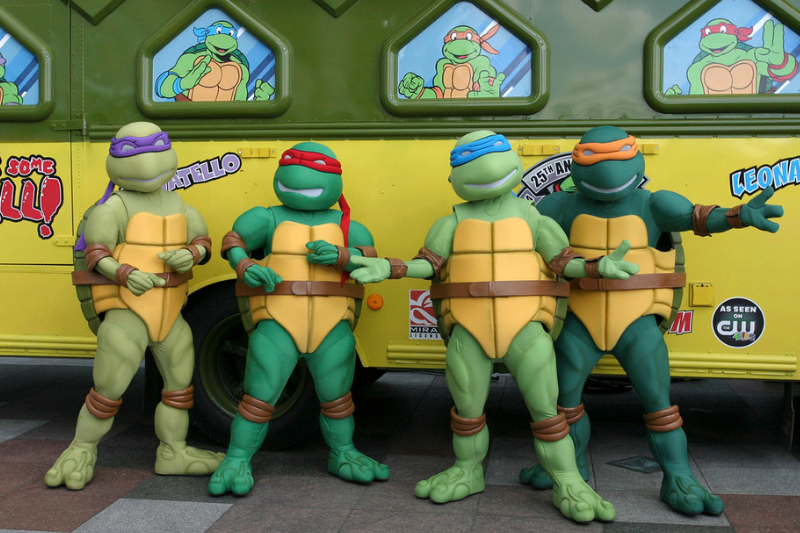
About the Ninja Turtles Font Generator
Teenage Mutant Ninja Turtles typography is bold, energetic, and packed with that cowabunga spirit β€” thick outlines, comic-book-style letterforms, and bright color palettes that scream Saturday morning cartoons and sewer lair adventures. The franchise's iconic logo style has been beloved by fans since the late 1980s across cartoons, comics, and blockbuster films.
Our Ninja Turtles font generator lets you generate your own TMNT-inspired text for free. Type in any message β€” your team name, a catchphrase, a birthday shout-out β€” select turtle-energy fonts and pick from shell green, pizza orange, or any custom colors, then download a PNG or JPG or copy and paste it. No account needed, no watermark on your files.
• Kids' birthday party invitations and banners
• TMNT fan art and tribute poster design
• Gaming team names and overlay graphics
• Retro cartoon-themed social media posts
• Custom merchandise and T-shirt concepts